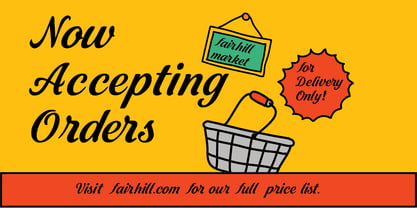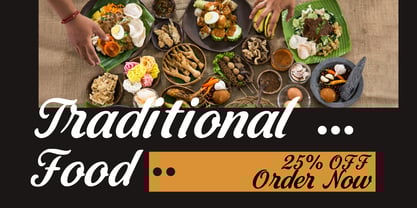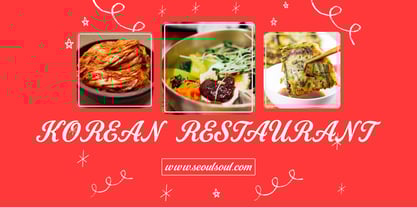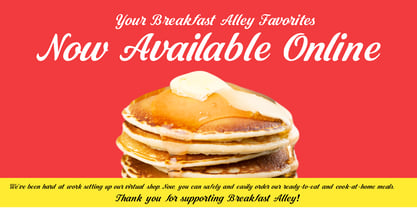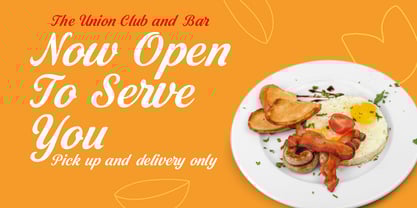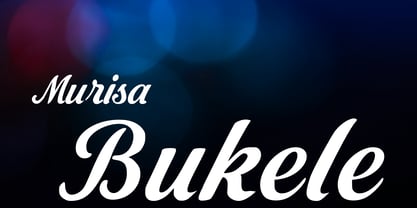
Murisa Bukele
by Murisa Studio
The Murisa Bukele Font Family was designed by Lili Sadili and published by Murisa Studio. Murisa Bukele contains 1 styles. More about this family
🎨 Murisa Bukele — Where Elegance Meets Expression
✨ Step into a world of flowing beauty with Murisa Bukele, a refined cursive-style font crafted for creators who crave sophistication and flair. Every stroke is a dance of grace, echoing the charm of traditional calligraphy while embracing modern versatility.
🌍 Designed with multilingual artistry in mind, Murisa Bukele supports Eastern European characters, making it a perfect choice for global projects that demand both style and substance.
💌 Whether you're designing wedding invitations, branding luxury products, or adding a personal touch to editorial layouts, this font brings warmth, elegance, and personality to every letter.
🖋️ Highlights:
• Smooth, flowing letterforms with timeless appeal
• Uppercase, lowercase, and numerals included
• Ideal for logos, packaging, social media, and more
• Eastern European language support for broader reach
🔥 Let your words speak with style. Murisa Bukele isn’t just a font—it’s a signature